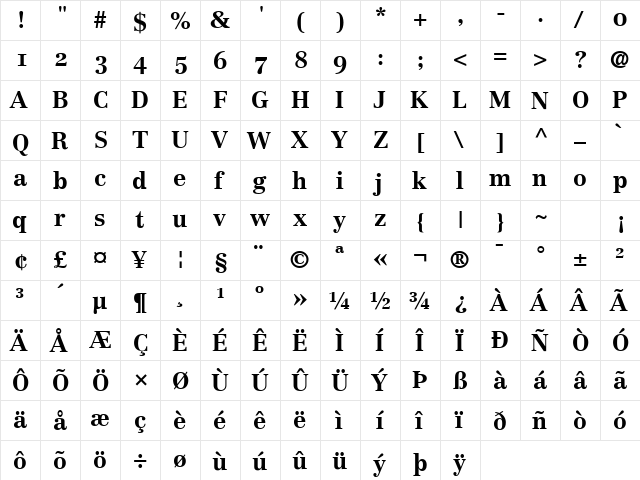
Century Reprise OldStyle SSi Bold
Design Context for Century Reprise OldStyle SSi Typeface
Century Reprise OldStyle SSi brings classic typographic sensibility to the table — its serifs and measured letterforms reflect centuries of print heritage. The heavy weight commands attention and anchors typographic hierarchies.
Pro Tip: Set Century Reprise OldStyle SSi with slightly loose tracking in headlines to let each letterform's detail read clearly at display sizes.